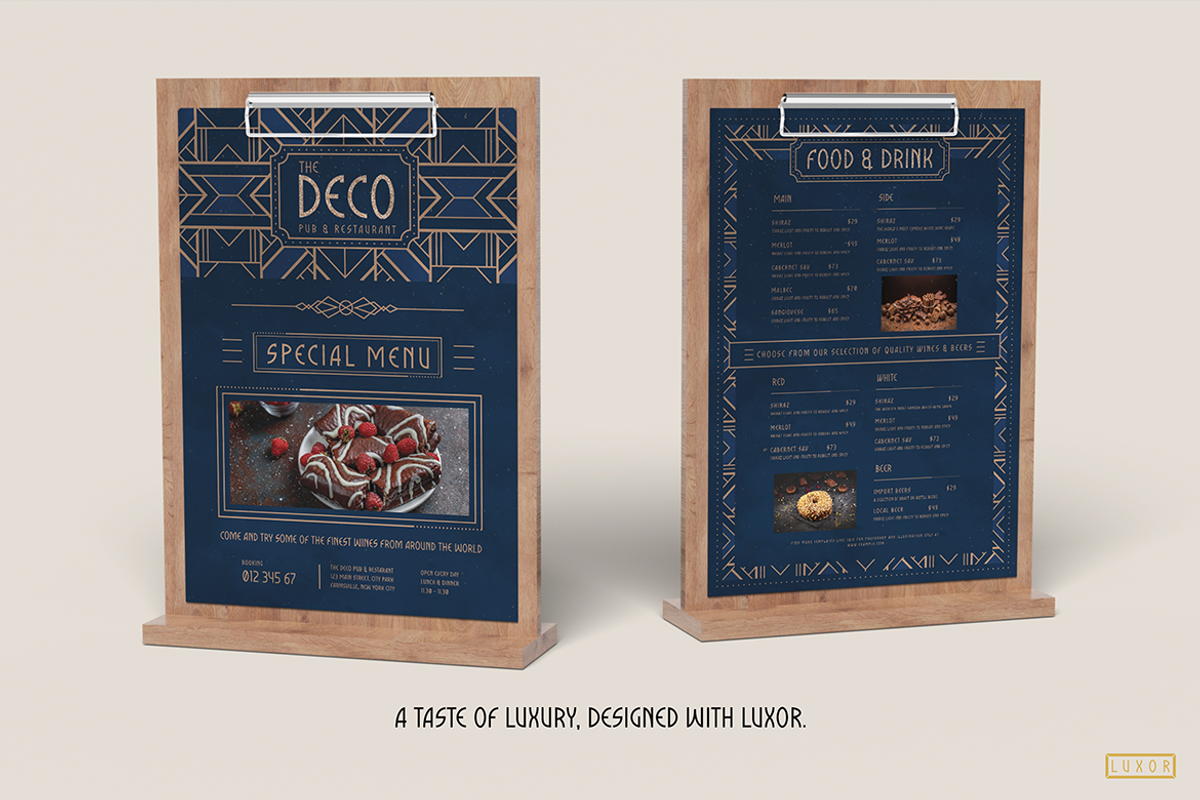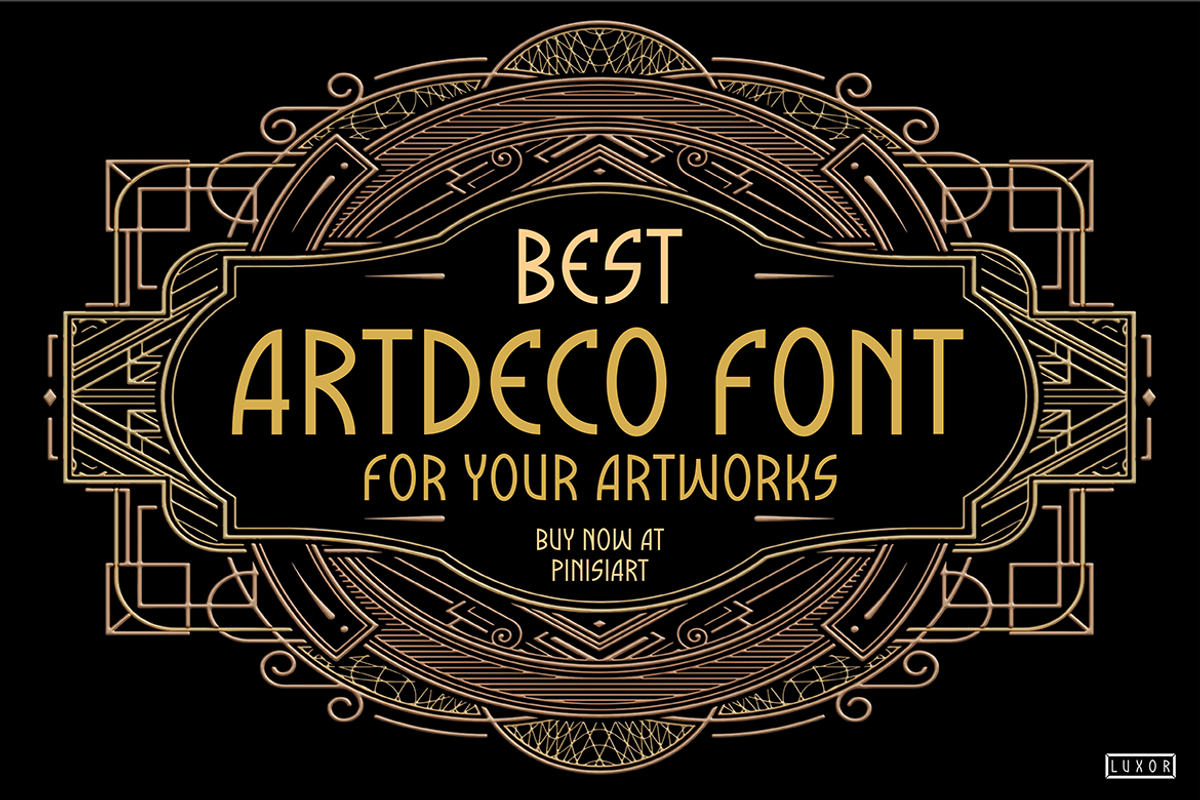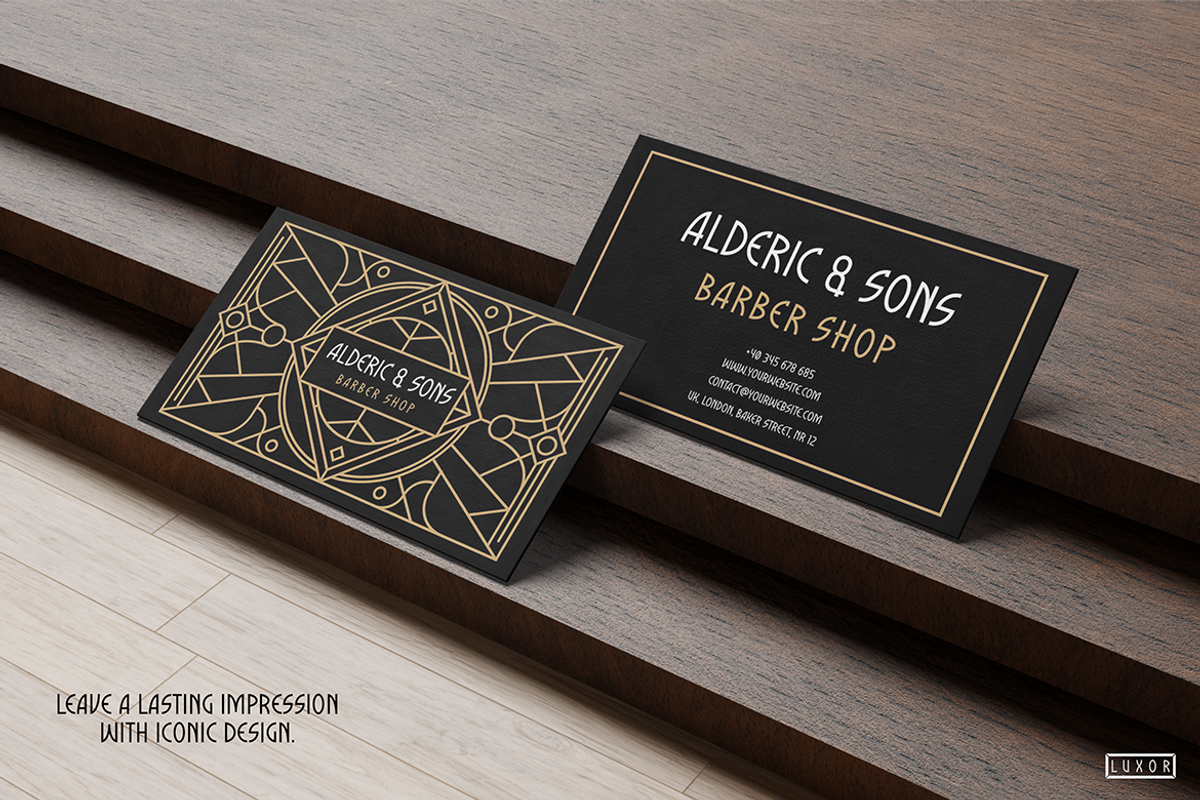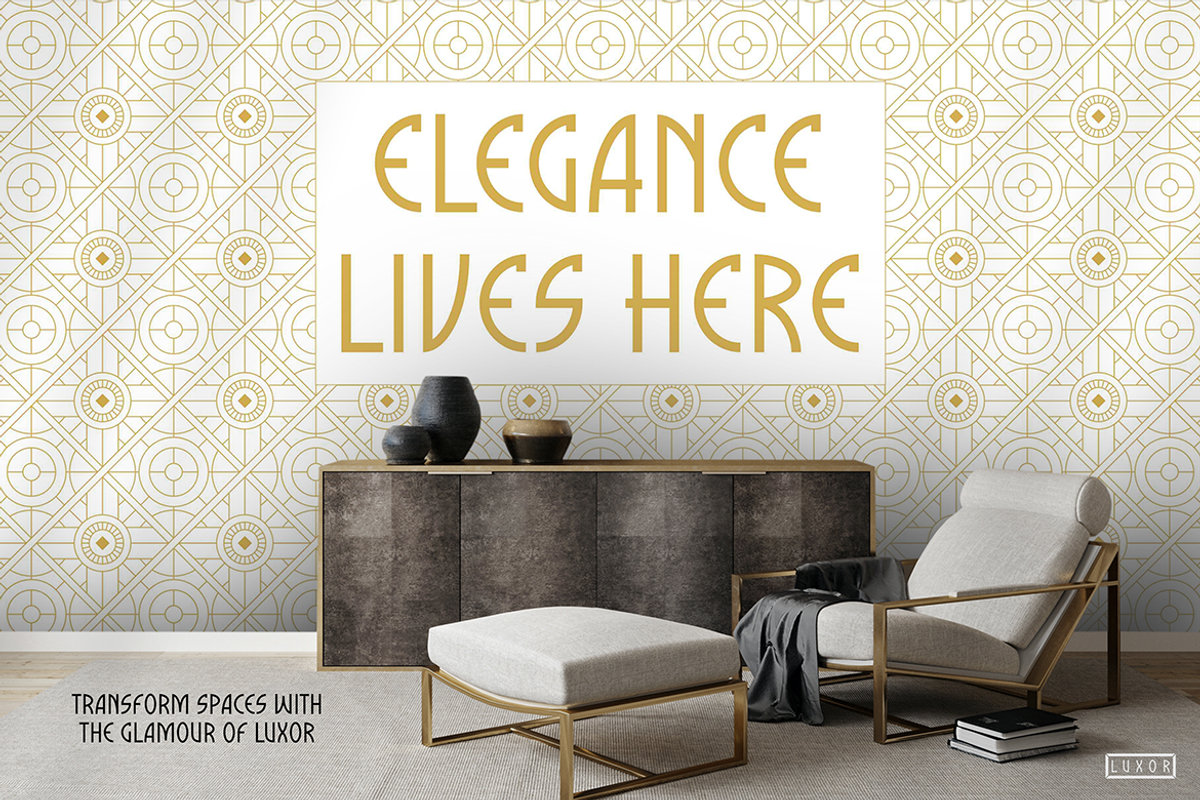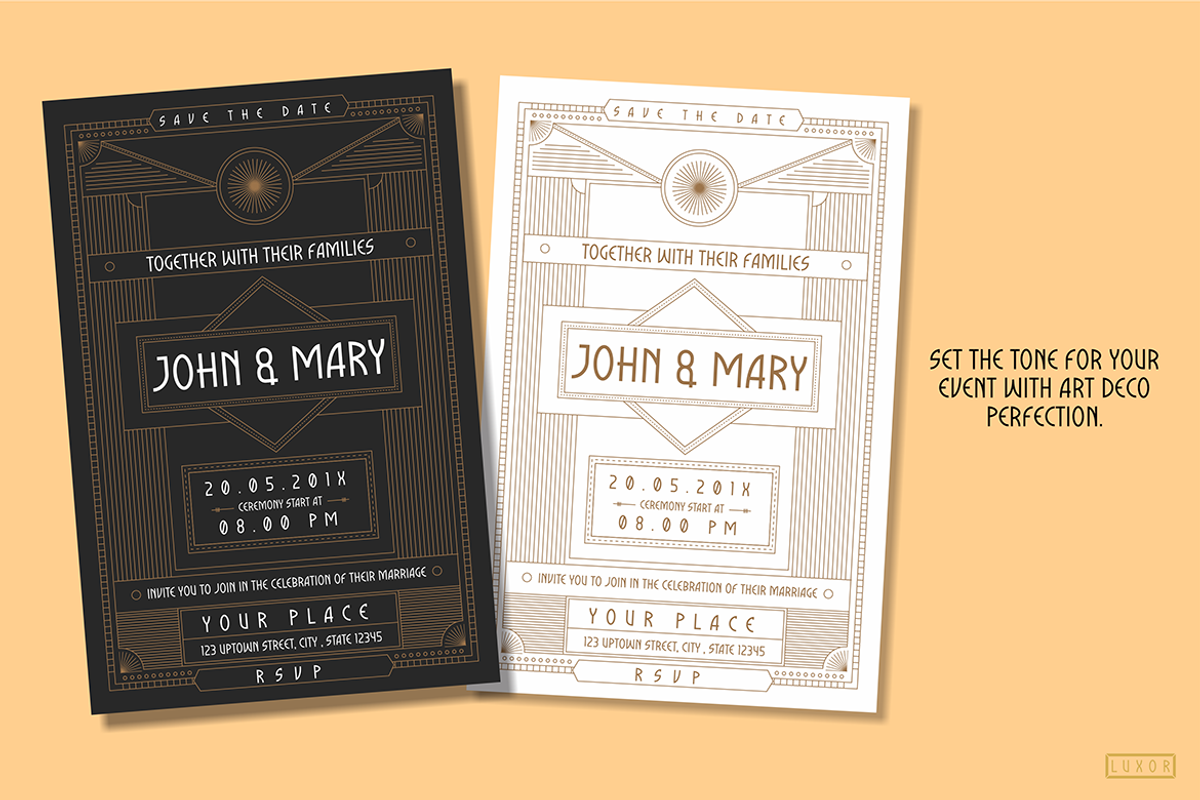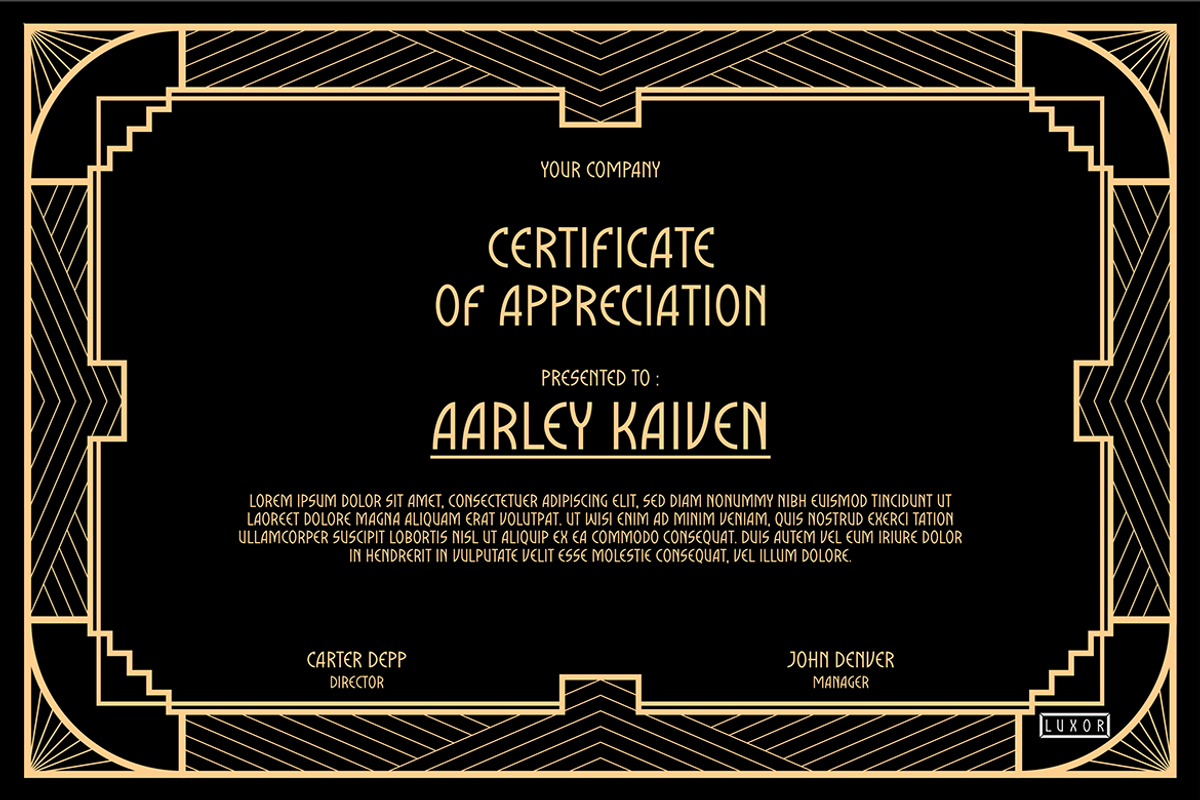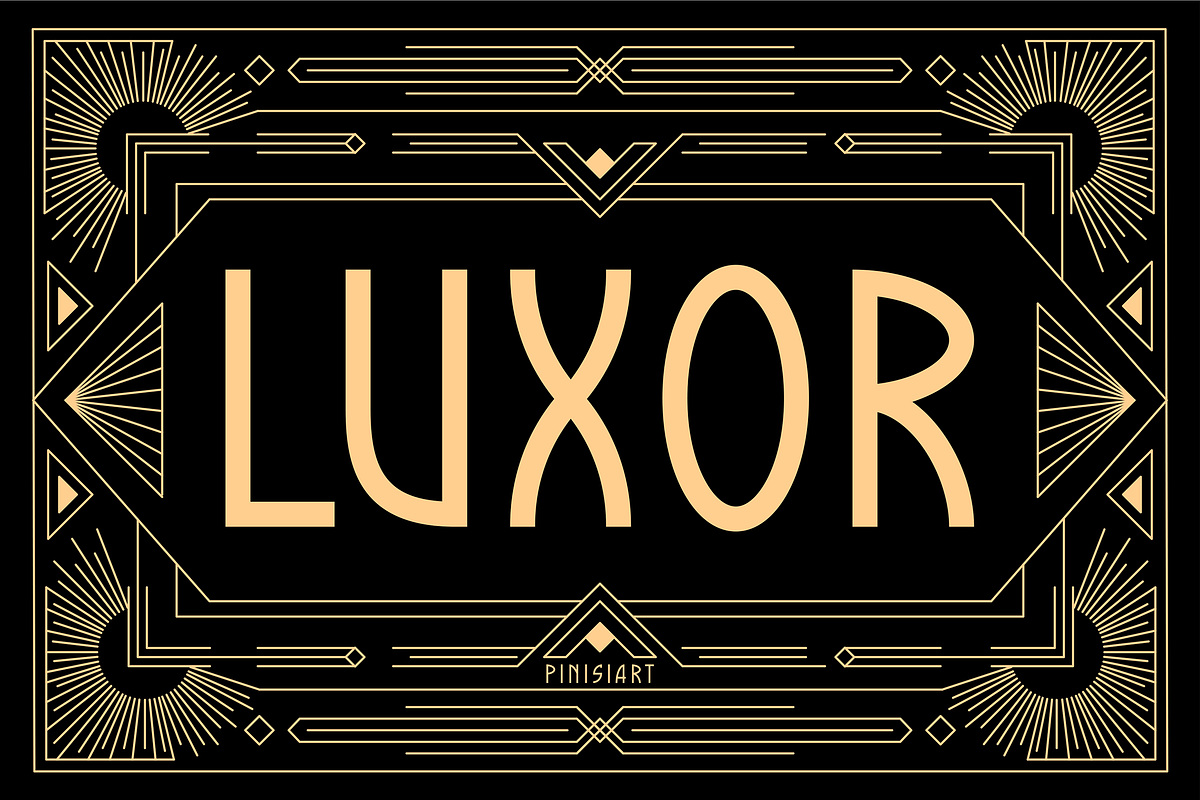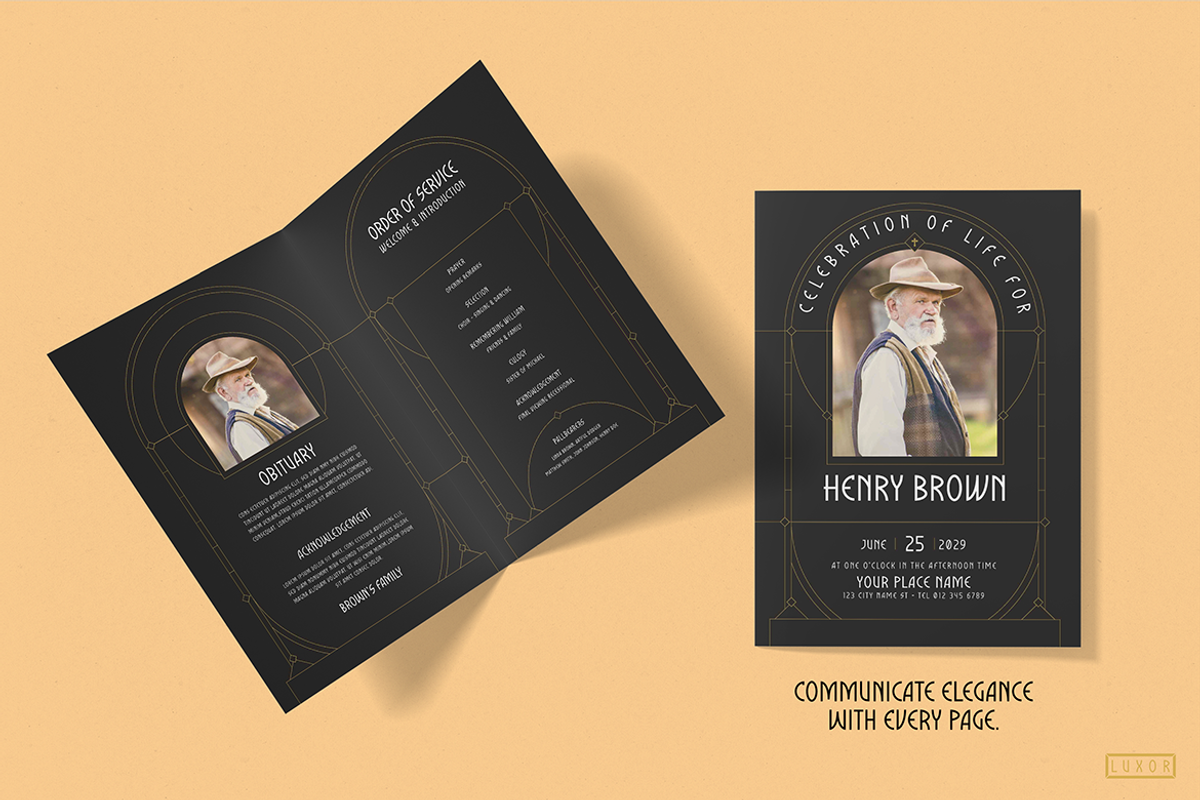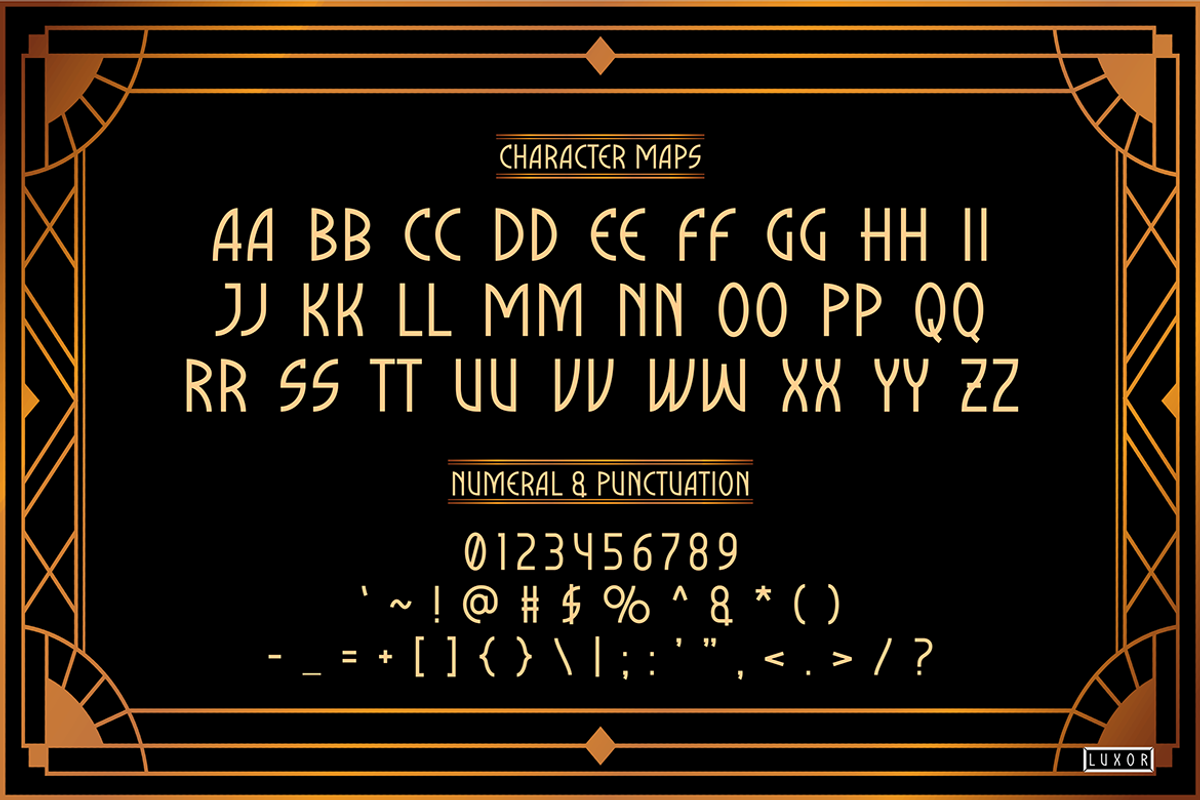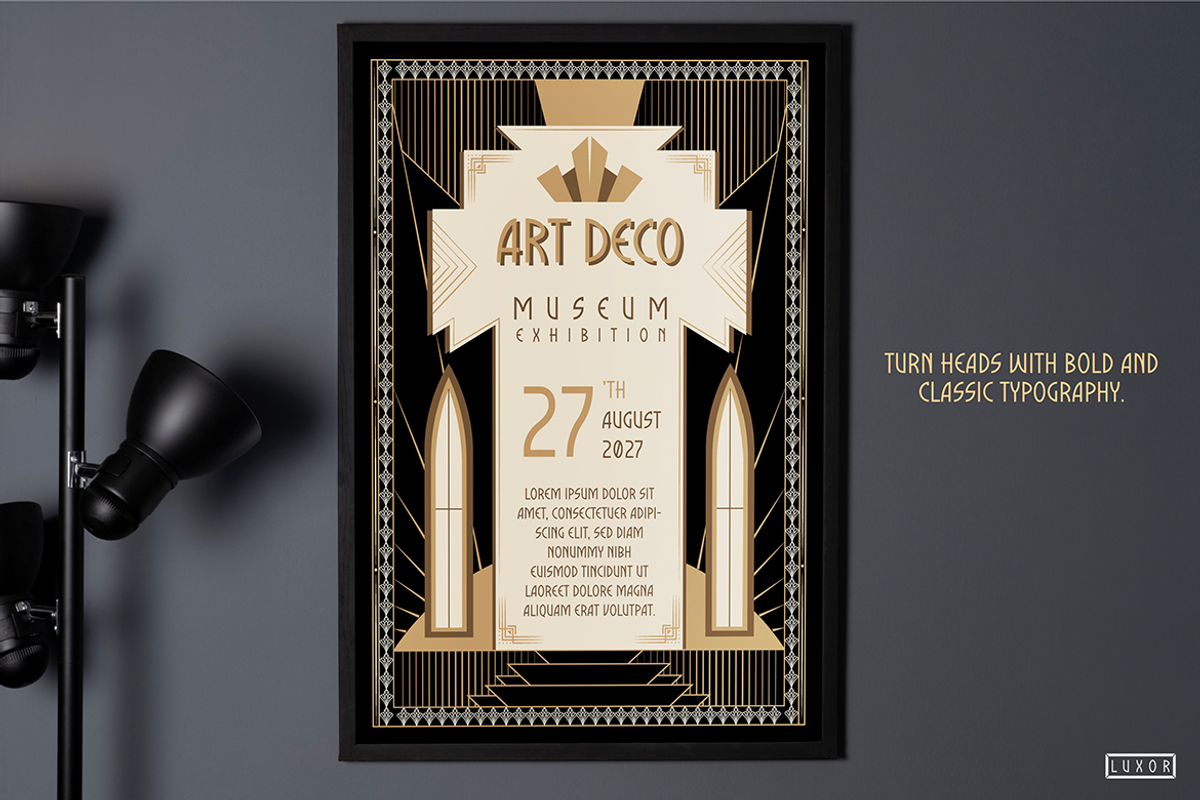
LUXOR
Luxor is a captivating vintage display font that combines timeless elegance with bold, geometric artistry. Inspired by the opulence of the Art Deco era, this font features sleek lines, intricate patterns, and a refined structure that radiates sophistication. Perfect for evoking nostalgia while maintaining a contemporary edge, Luxor is designed to make a statement in any creative project. Whether you're crafting a logo, designing packaging, or creating invitations, this font will infuse your work with classic charm and luxurious appeal.
Ideal for luxury branding, editorial layouts, event posters, and decorative design projects, Luxor seamlessly adapts to a variety of uses while maintaining its vintage allure. Its versatility makes it an excellent choice for everything from premium product labels to glamorous wedding invitations. With Luxor, your designs will capture the essence of timeless beauty and leave a lasting impression.